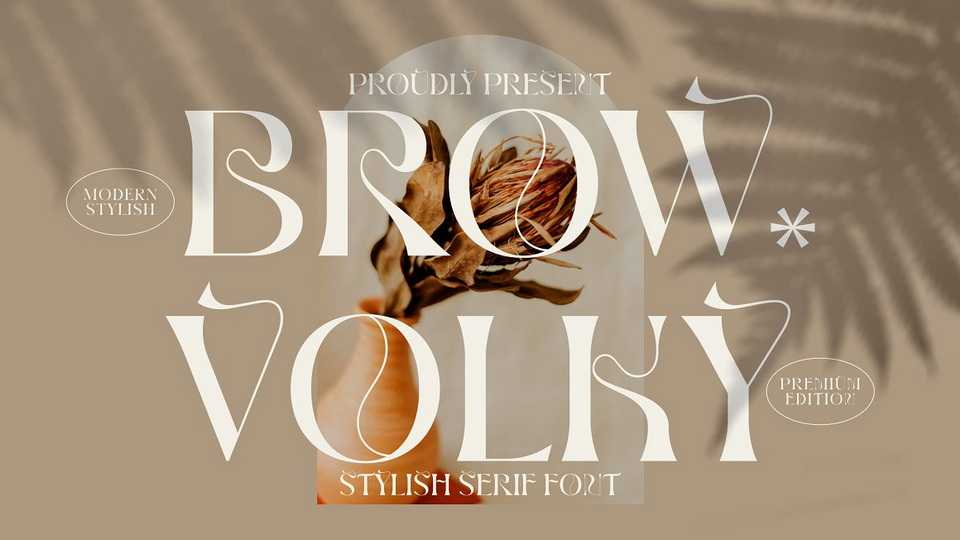
Download Brow Volky font, a modern serif typeface that has own unique style and fancy look. Brow Volky font is perfect for a luxury logo, book or movie title design, fashion brand, magazine, clothes, lettering, quotes, and so much more.